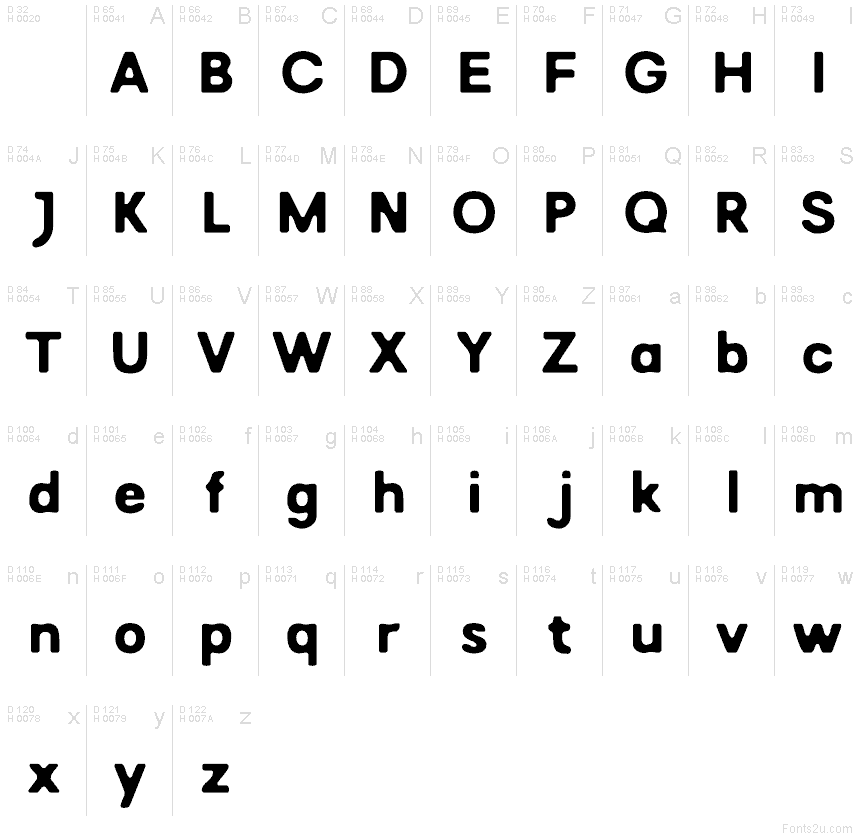
Radeil Blur font by Craft Supply Co. is a modern sans serif with rounded ends and geometric figures. The approachable font style has soft curves even in letters that would normally have straight lines for some added balance and flow. The combination can take the audience’s breath away and make them fall right into the concept of the design.
This free display font works in posters, covers, CD covers, social media posts, book designs, applications, websites, branding projects for logos and packaging designs, stationery designs to showcase products from cosmetics to gadgets. Combine it with other fonts or use it for writing titles and headers all on its own.